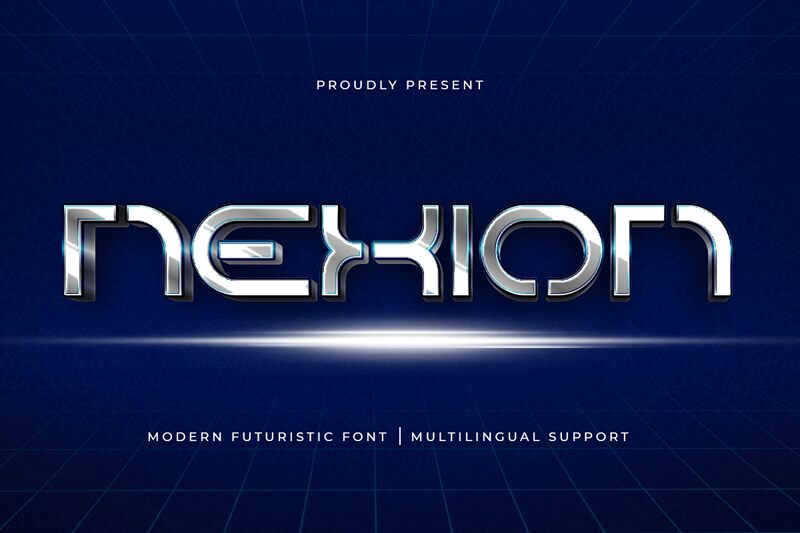
Nexion font by Kong Font is a futuristic display font with expanded letters that create a visual uniqueness. It has a sophisticated and modern style with influences from geometry suitable for a variety of uses. It features smooth lines with great precision for all the letters, which makes it recognizable in any setting and setup.
The free Nexion font can be used in branding, signage, packaging, flyers/posters, business cards, invitations, magazines/newspapers, book covers/titles et cetera. Imagination is key as the possibilities literally have no horizontal limit thanks to these amazing forms of letters.